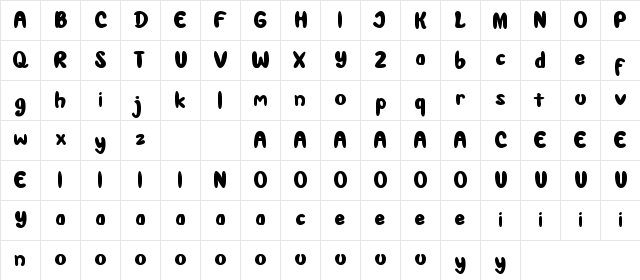
Chamoeflashe Regular
| Designer | Zkhai Creative |
Design Context for Chamoeflashe Typeface
Chamoeflashe is a composed and adaptable typeface that performs quietly and consistently across a wide range of design contexts.